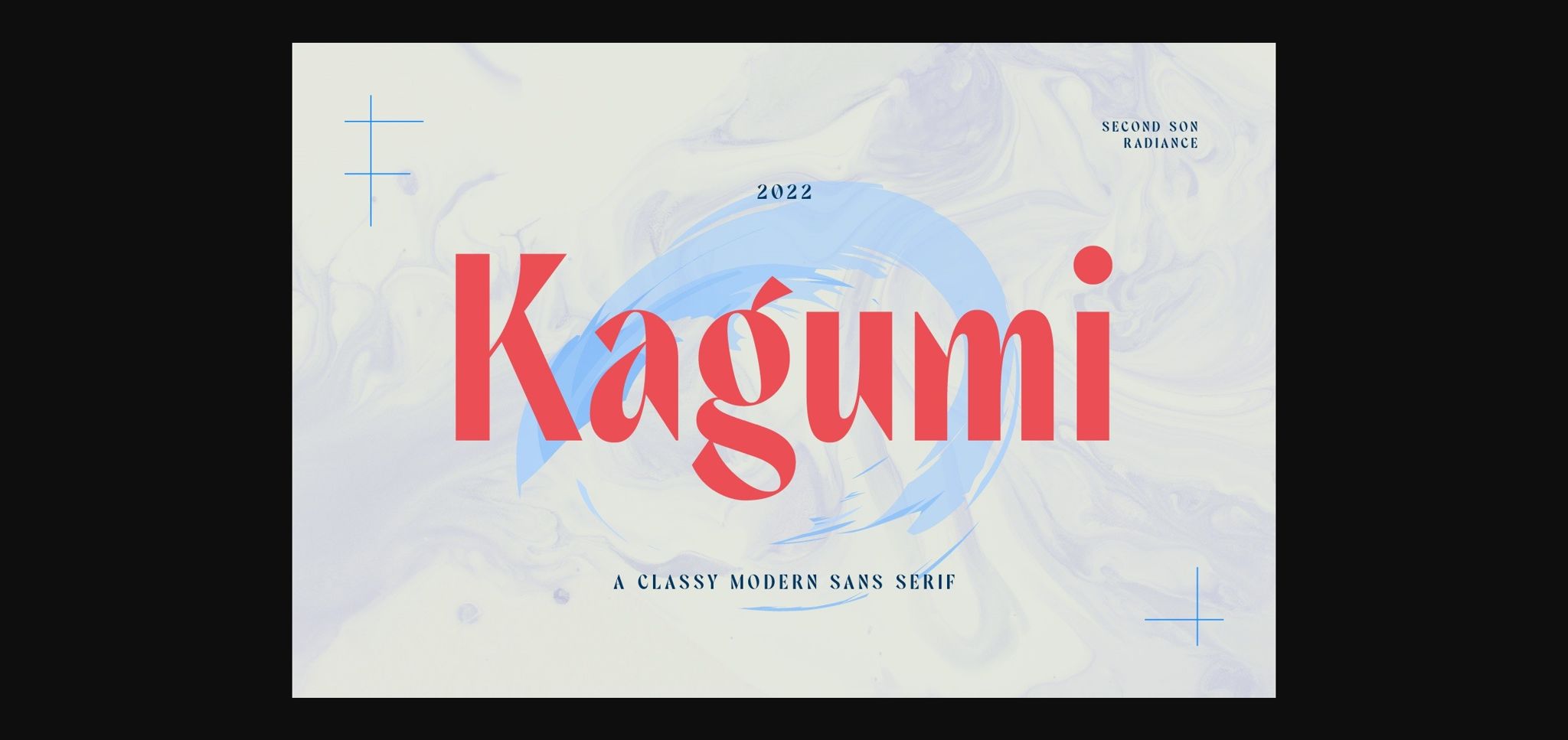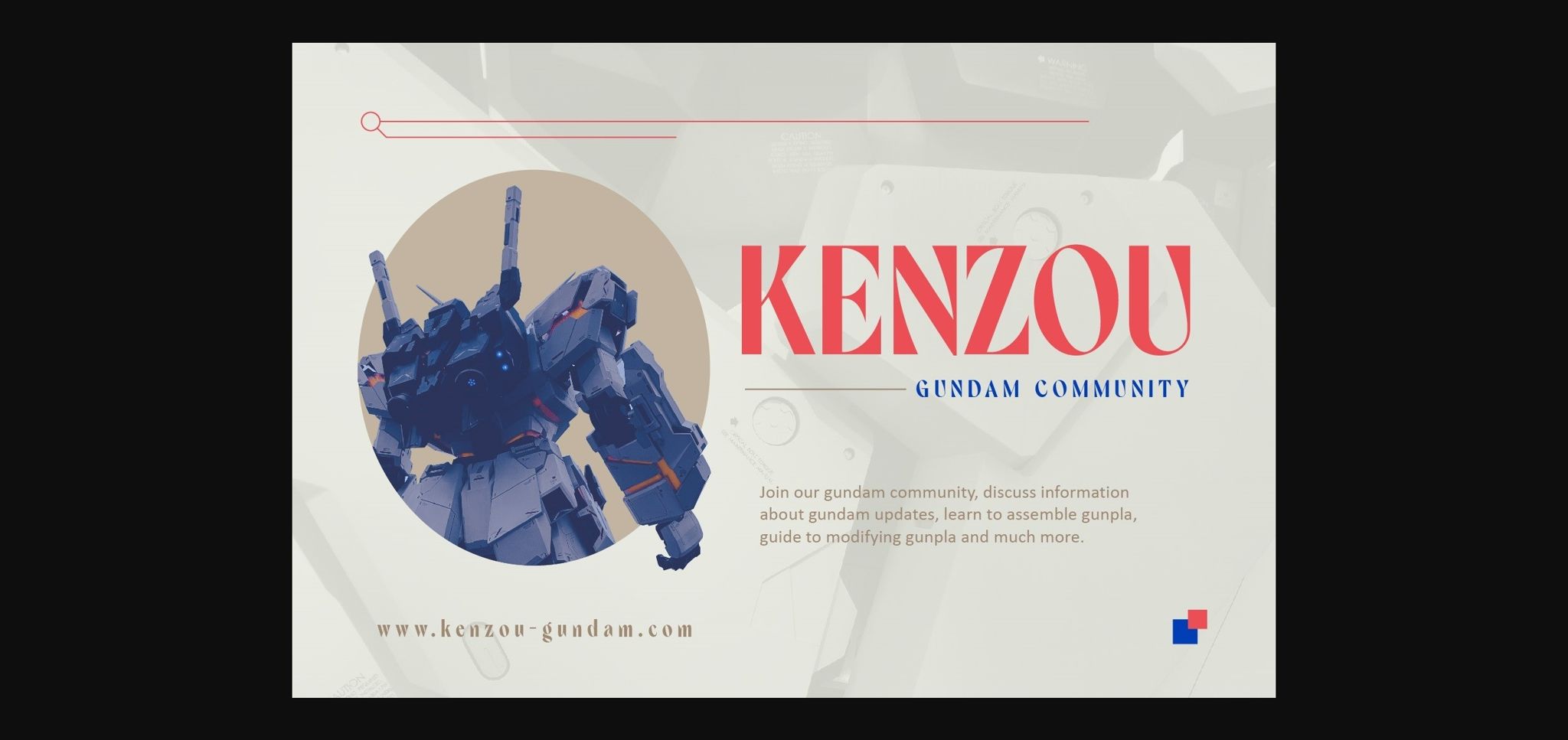
About Kagumi Font
Kagumi is a sophisticated, charming sans serif font with a Japanese vibe. Specially designed for luxury, elegant, feminine projects, this font is perfectly suitable for any design needs such as logos, labels, headlines, social media posts, advertisements, and more!